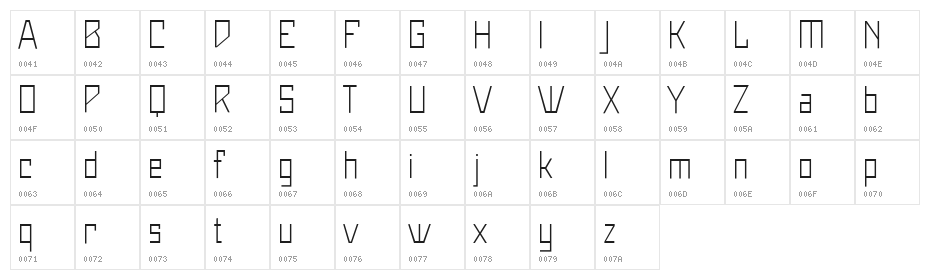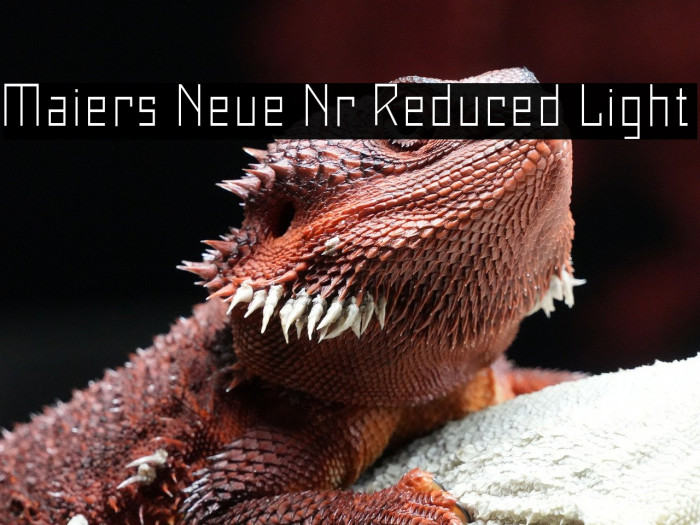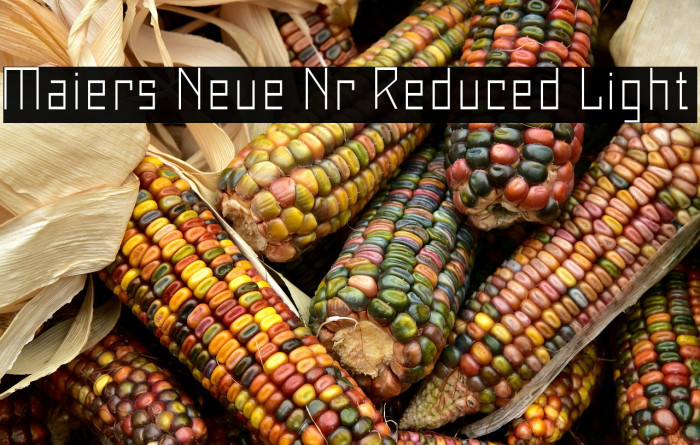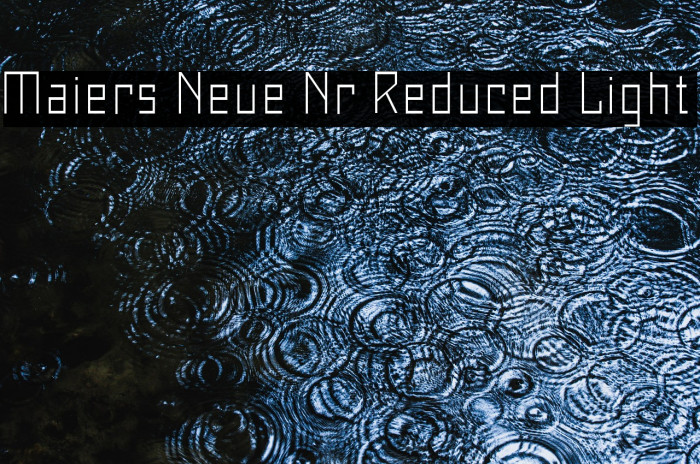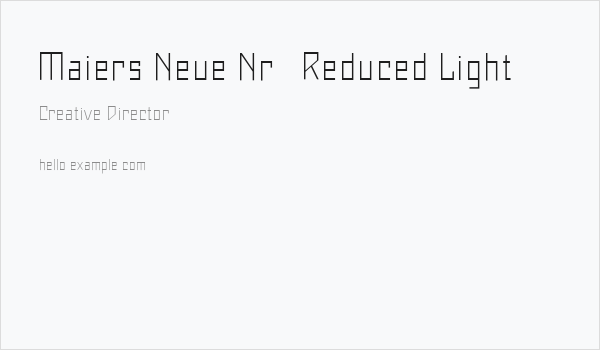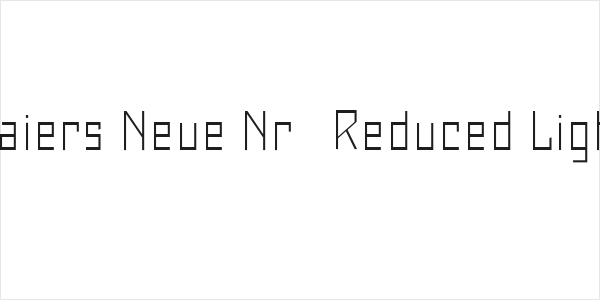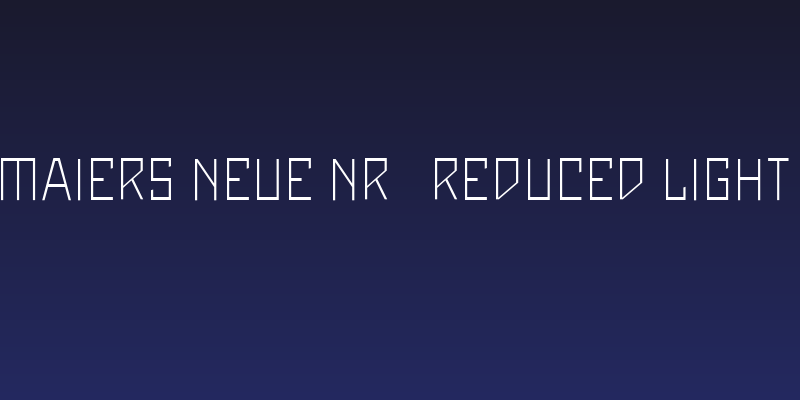
Maiers Neue Nr.8 Reduced Light Font
Maiers Neue Nr.8 Reduced Light Description
This font features a geometric and minimalist design, characterized by its thin, uniform lines and angular shapes. The uppercase and lowercase letters maintain a consistent height, creating a harmonious and balanced appearance. The font's structure is clean and modern, with a focus on simplicity and readability. The characters are constructed with straight lines and sharp corners, giving it a technical and precise feel. This style is reminiscent of architectural blueprints or digital displays, making it suitable for contemporary and tech-oriented applications.
| Use Case | Logos, Headlines, Digital interfaces |
| Proposed Projects | This font is perfect for tech branding, digital interfaces, architectural designs, and modern art projects. |